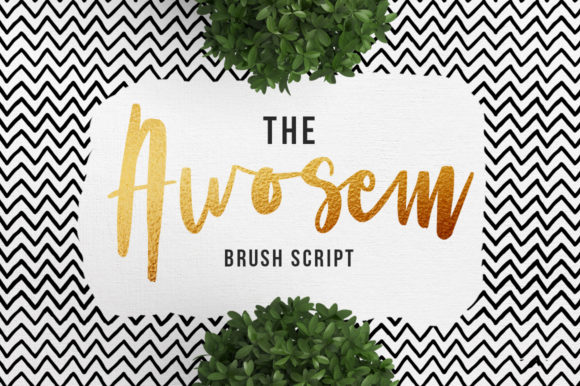
Dive into the realm of artistry with The Awosem Font, a captivating creation by Maulana Creative. Its enchanting strokes mirror the beauty of handwritten notes, brimming with authenticity and charm. This script font family dances off the page, leaving an indelible mark on the hearts of viewers.
Add a dash of whimsy to your advertising campaigns with The Awosem's playful personality, elevating your designs to new heights. Its versatility knows no bounds, effortlessly complementing projects ranging from striking logos to captivating social media posts. Experience the boundless creativity as you shape your brand identity with this font's exceptional flair.
Unleash your imagination and let The Awosem's allure enchant your target audience. Its sophisticated aesthetic magnetizes attention, leaving an enduring impact that lingers in the minds of consumers. Embrace the transformative power of this font as it reshapes your marketing endeavors, propelling your business towards unprecedented success.